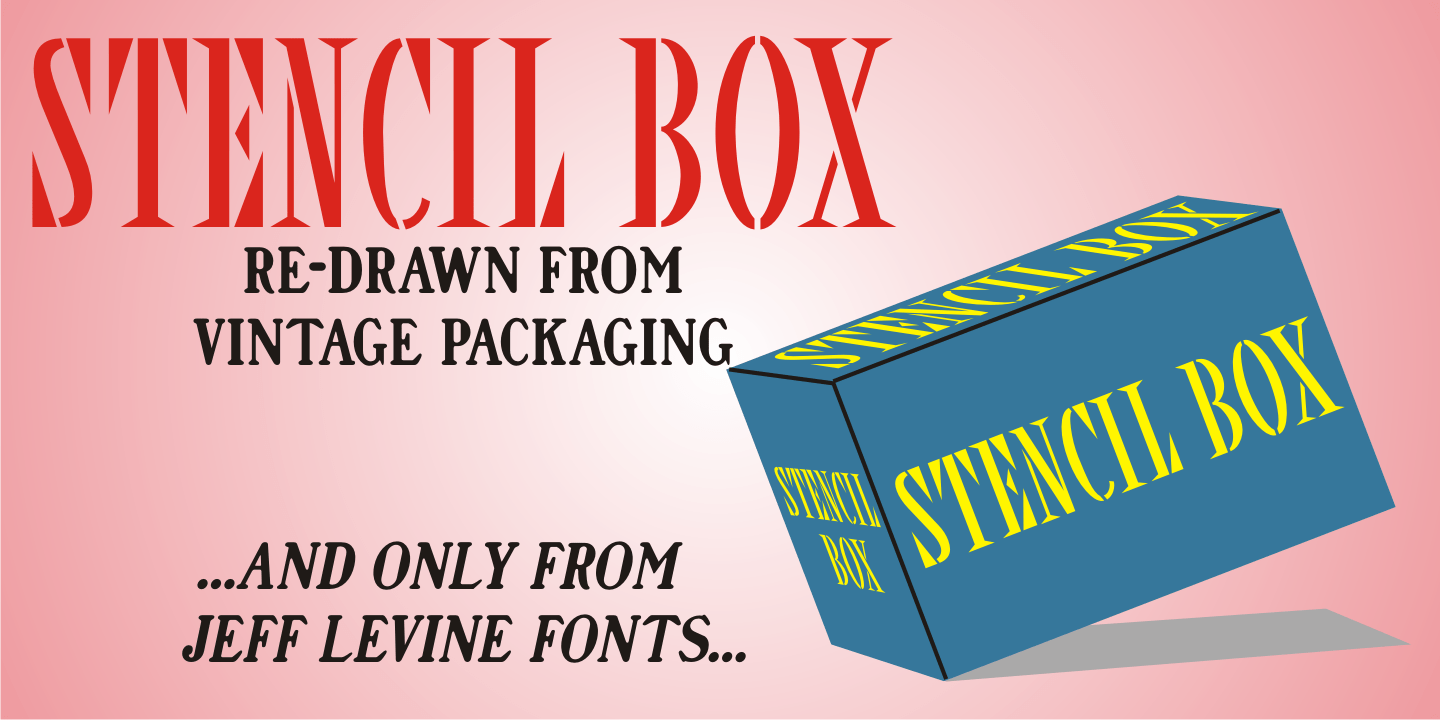
Stencil Box
The lettering for Stencil Box JNL was found on the packaging of a children's toy stencil set circa the 1940s. Popular for years, Pencil Stencils were a series of 'connect the line' stencils where a series of dashed lines were traced from the cutouts and the lines connected to complete pictures of animals or other subjects.
Although the packaging itself was often updated to reflect the current times during the life of the product, it was this hand-lettered example of stencil-meets-Art Deco from the 40s that proved worthy of saving as a digital typeface.